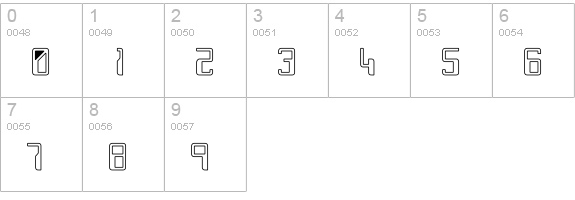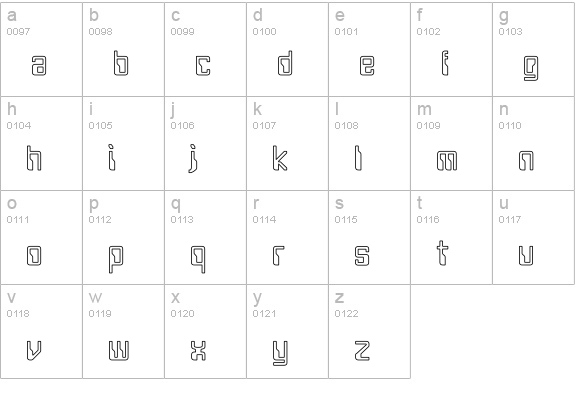
Future Hollow Font Details
Future Hollow font is a modern and sleek typeface that exudes a futuristic and edgy vibe. Its clean lines and geometric shapes give it a contemporary feel, making it perfect for a wide range of design projects. The hollow design adds a unique touch to the font, adding an element of visual interest. What sets Future Hollow font apart is that it is not only stylish and versatile, but it is also available for free download at FontsMarket.com. This means that you can easily access this high-quality font and use it in your creative projects without any cost. Whether you are designing a website, creating a poster, or working on a branding project, Future Hollow font is a great choice that will elevate your designs and make them stand out.